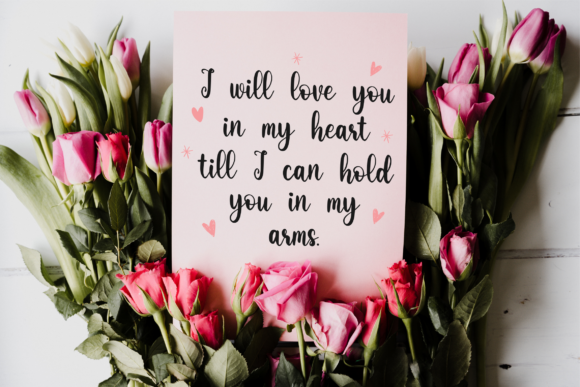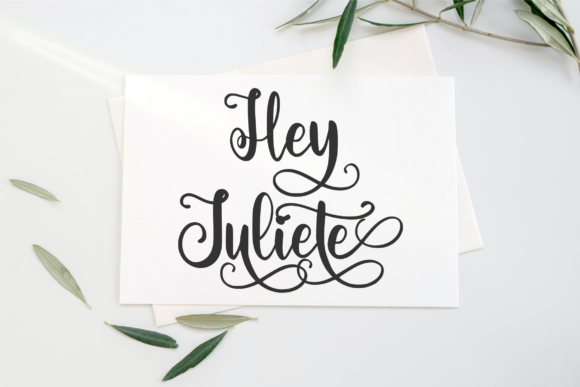
Matilda Calrysta Font
db-ku.com - Script & Handwritten -- Matilda Calrysta is a cute swash calligraphy font with smooth curves. It has a wonderful dancing baseline and tons of character. Use it for invitations, greeting cards, promotional materials, websites, and branding that needs an elegant and natural style.